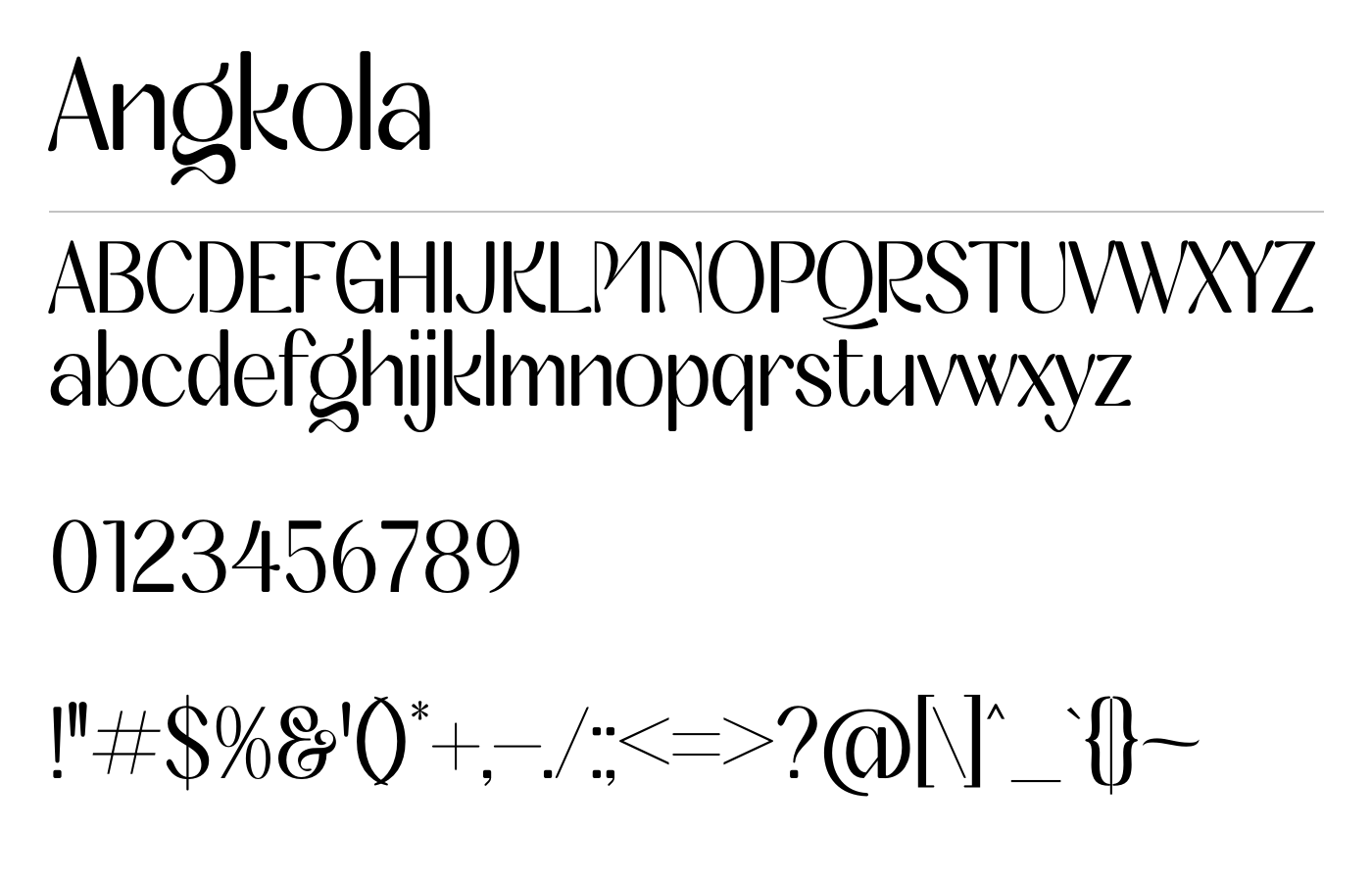
Angkola is a stylish serif font with a modern twist, featuring high contrast between thick and thin strokes and elegant, slender letterforms. Its unique curves and delicate serifs give it a refined, artistic feel, making it perfect for luxury branding, editorial headlines, and sophisticated packaging. This font combines originality with readability, ideal for designs that want to convey elegance and creativity.
Angkola Font
About Angkola Font